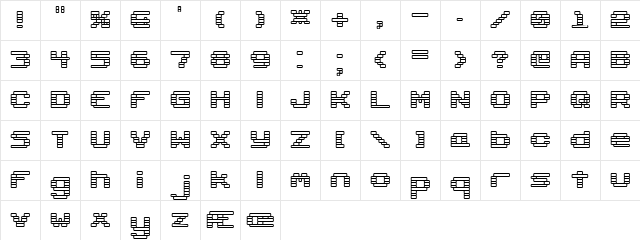
Gaposis Outline (BRK) Regular
Design Context for Gaposis Outline (BRK) Typeface
Gaposis Outline (BRK) brings ornamental detail and strong personality to headlines and identities, where visual impact matters more than quiet functionality.
Font Pairing: Pair with a clean neutral sans-serif for body copy to let Gaposis Outline (BRK)'s character lead without overwhelming the composition.
Pro Tip: Treat Gaposis Outline (BRK) as the centrepiece of your typographic hierarchy. One strong heading set in a decorative face can carry an entire layout.